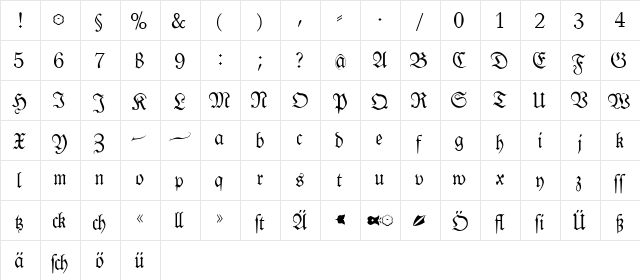
KlausBFraktur Regular
Design Context for KlausBFraktur Typeface
KlausBFraktur draws on the rich tradition of blackletter calligraphy, with dense, angular strokes that evoke medieval manuscripts and old-world craftsmanship.
Well-suited to band logos, craft beer branding, tattoo lettering, and heritage-themed identities.
Font Pairing: Pair with a clean neutral sans-serif for body copy to let KlausBFraktur's character lead without overwhelming the composition.
Pro Tip: Use KlausBFraktur sparingly at large sizes. Even a single word set in blackletter can define the visual register of an entire design.